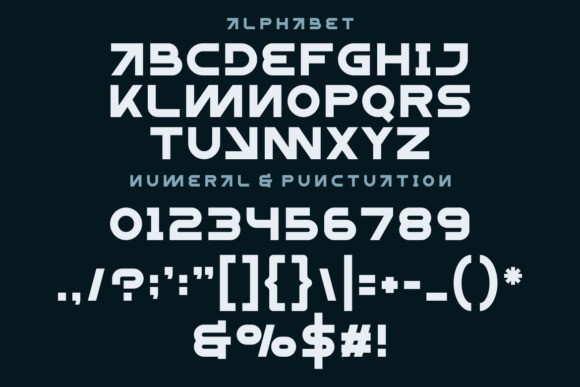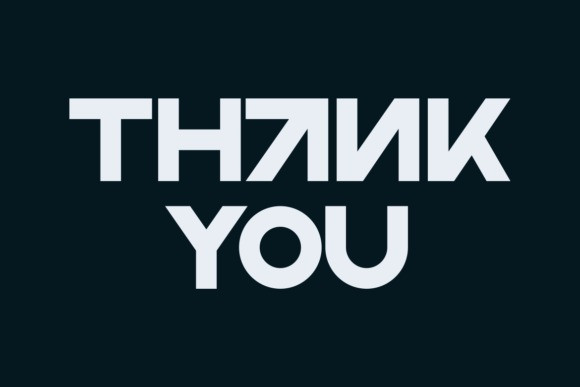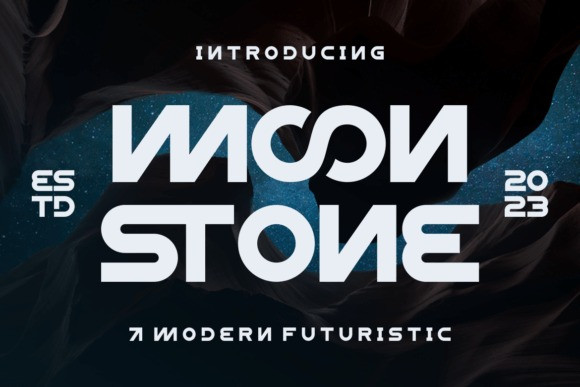
Moonstone Font
Moonstone Font – Modern Font is a bold and authentic display font. The font is suitable for any branding project like logo, template design, esport, and many more. Outstanding in a wide range of contexts.